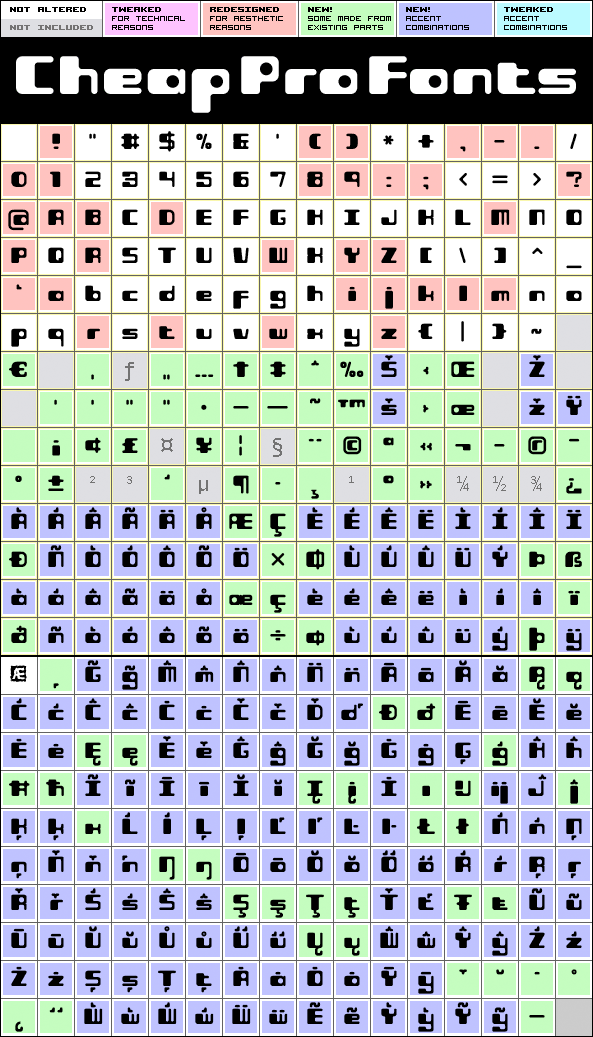
Part futuristic + part rounded = totally psychedelic ;) This font from Brian Kent is perfect for that 70s hippie look. I have totally redrawn the outlines, and redesigned a couple of glyphs that were too "mechanical".
Phorfeit BRK Pro is a professionally reworked font that contains an extended character set for setting text in 65 languages requiring more than the basic A-Z!